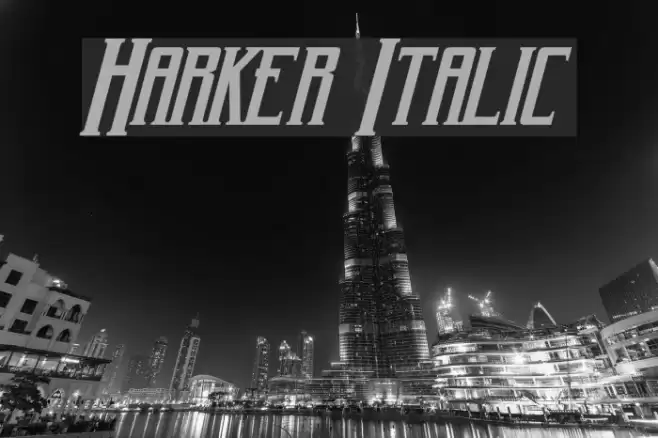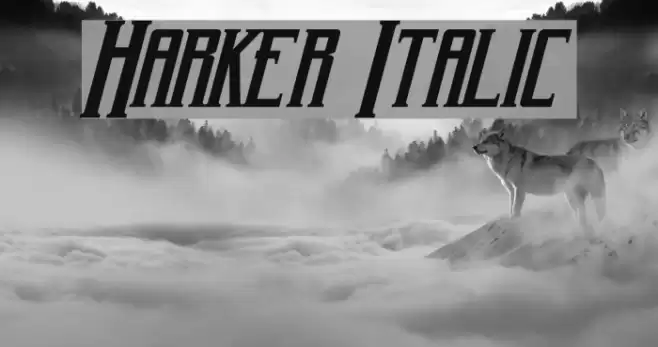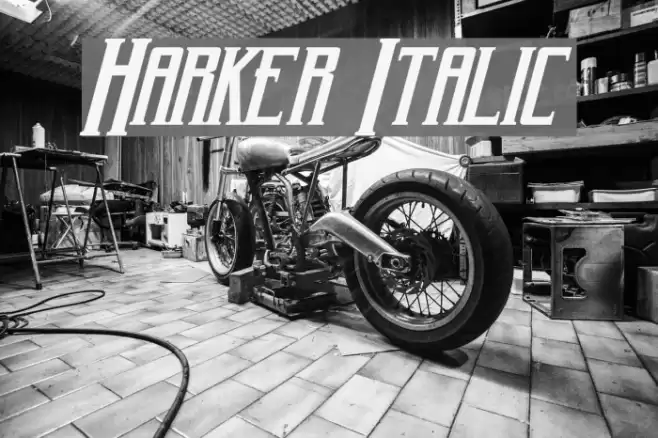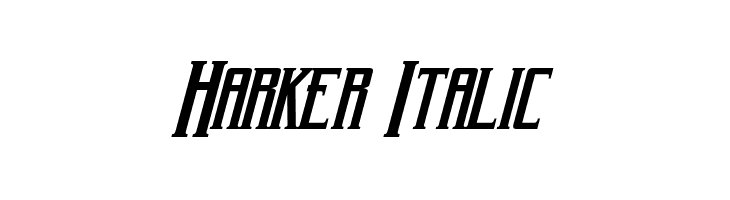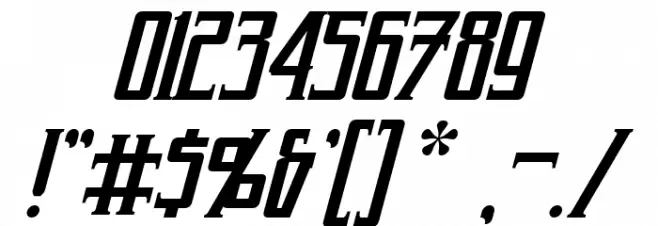
Harker Italic Font
Harker Italic Description
This font features a dynamic and angular style, characterized by its italicized, forward-leaning posture. The letters are elongated with sharp edges and a consistent slant, giving it a sense of motion and urgency. The uppercase and lowercase letters maintain a uniform height, creating a cohesive appearance. The numerals and special characters follow the same angular design, ensuring consistency across all glyphs. The overall look is bold and impactful, making it suitable for attention-grabbing designs.
A dynamic, italicized font with sharp, elongated characters from Uncategorized fonts.
- Proposed Projects: Ideal for sports branding, dynamic posters, and modern advertising campaigns.
- Character Spacing: Tight